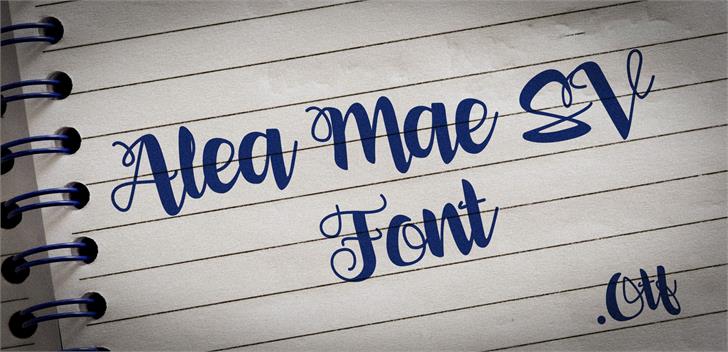
Free Alea Mae SV Font
Featuring the eye-watering free alea mae sv font. This is a downloadable typeface file brought to you by Font Space. This is absolutely fancy font so you can easily make world-class designs.